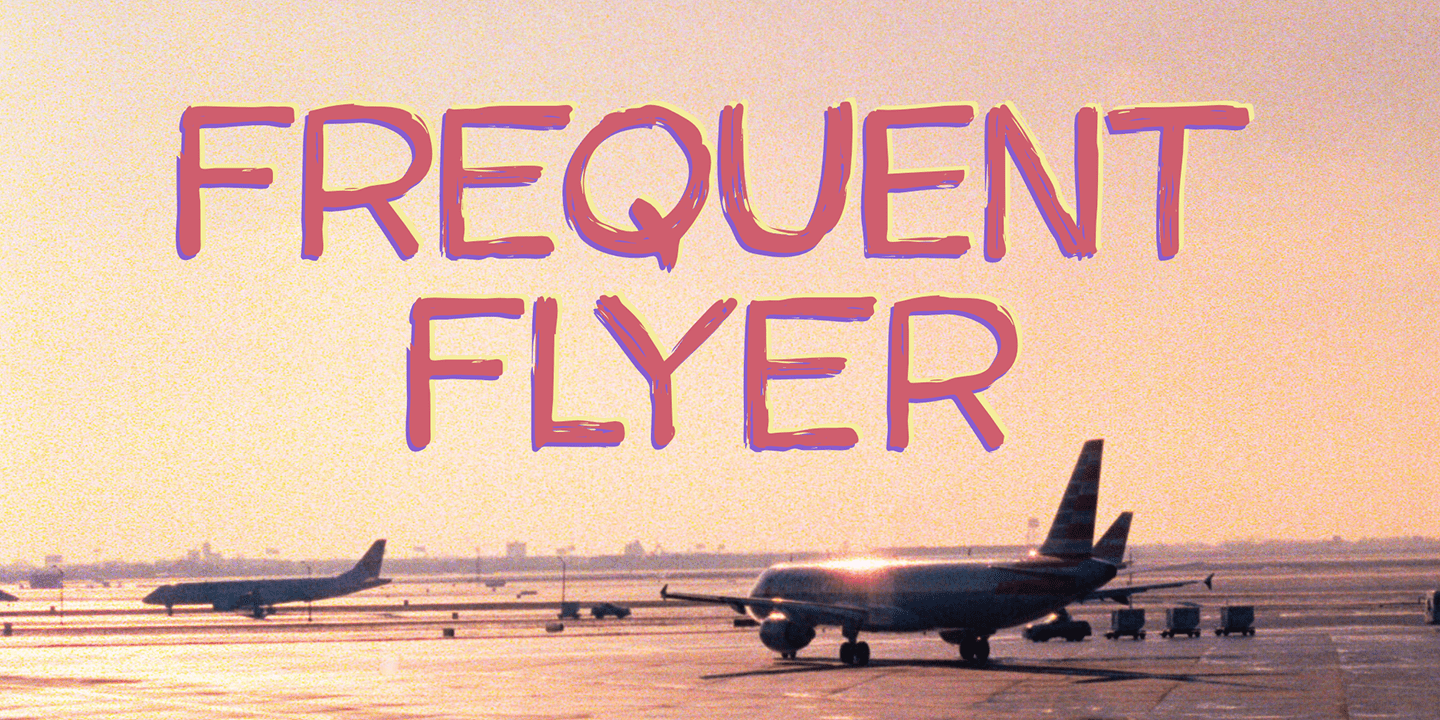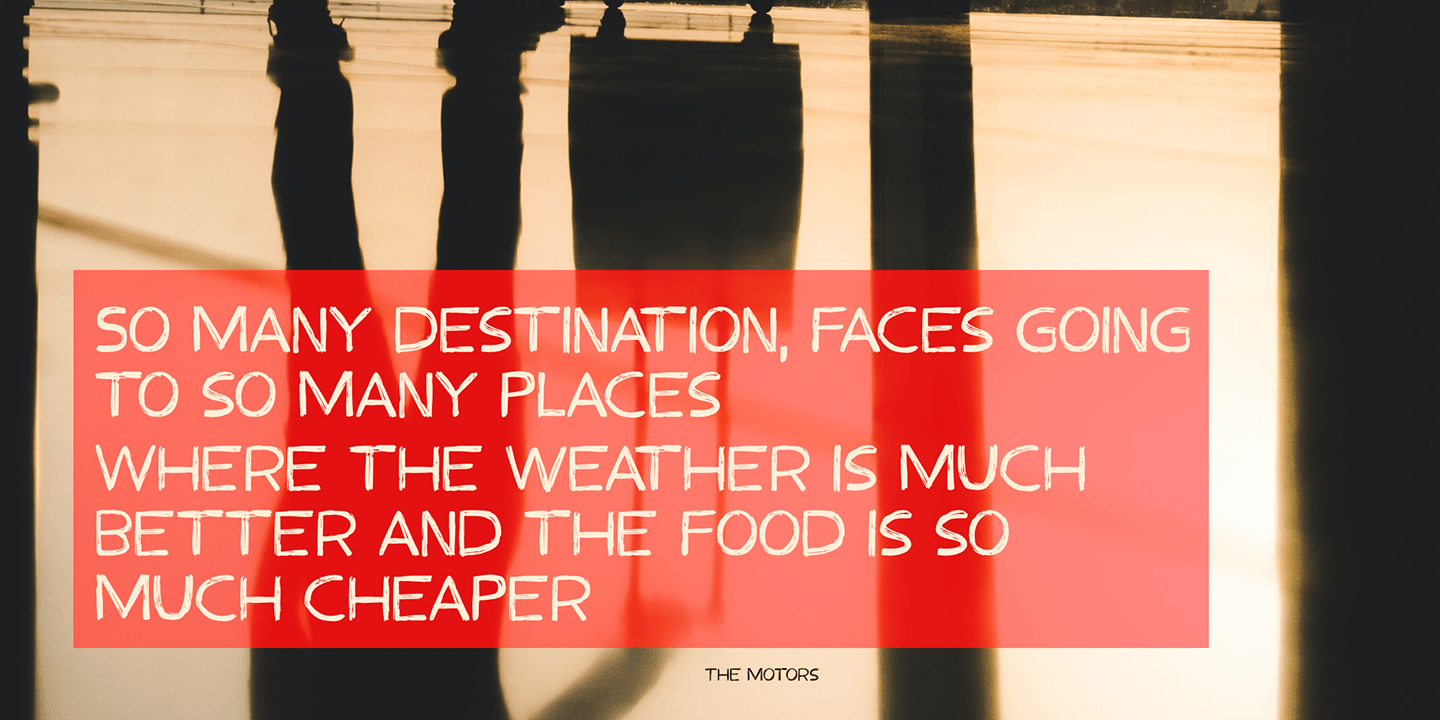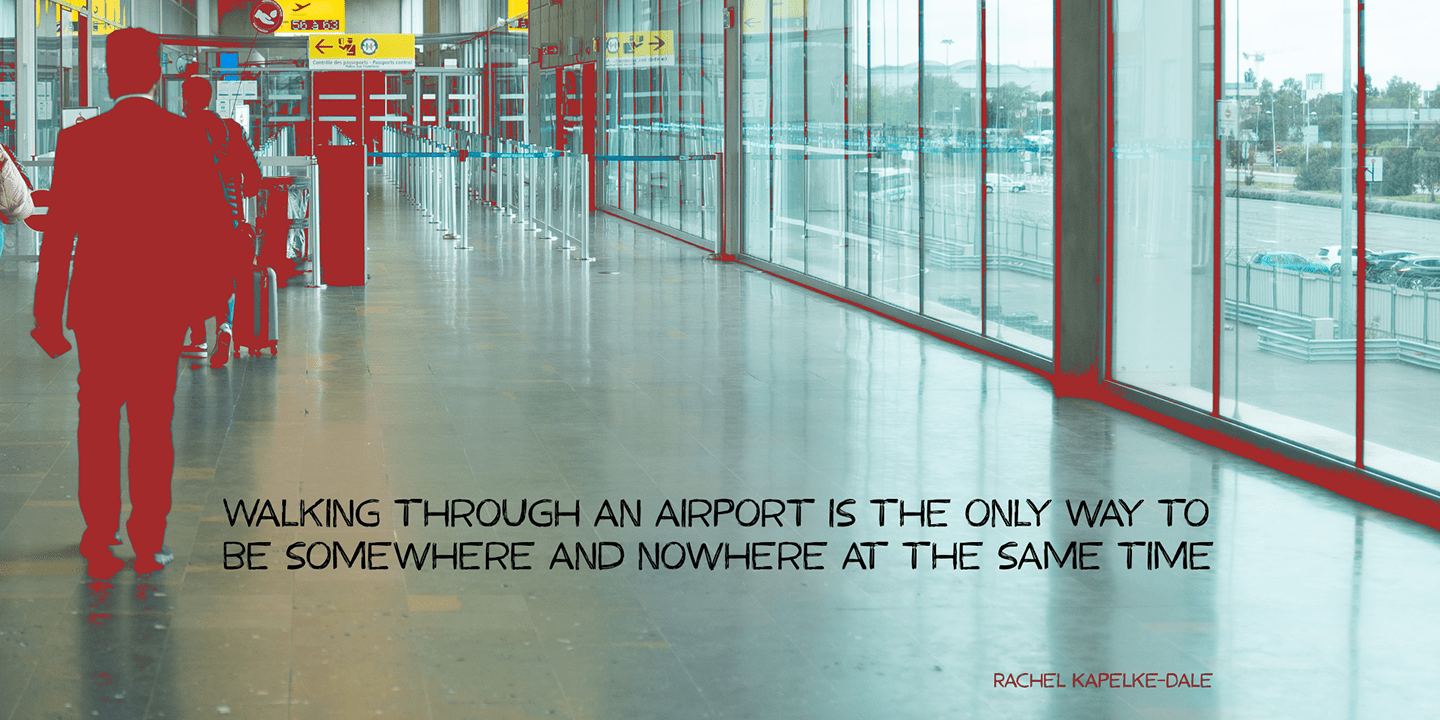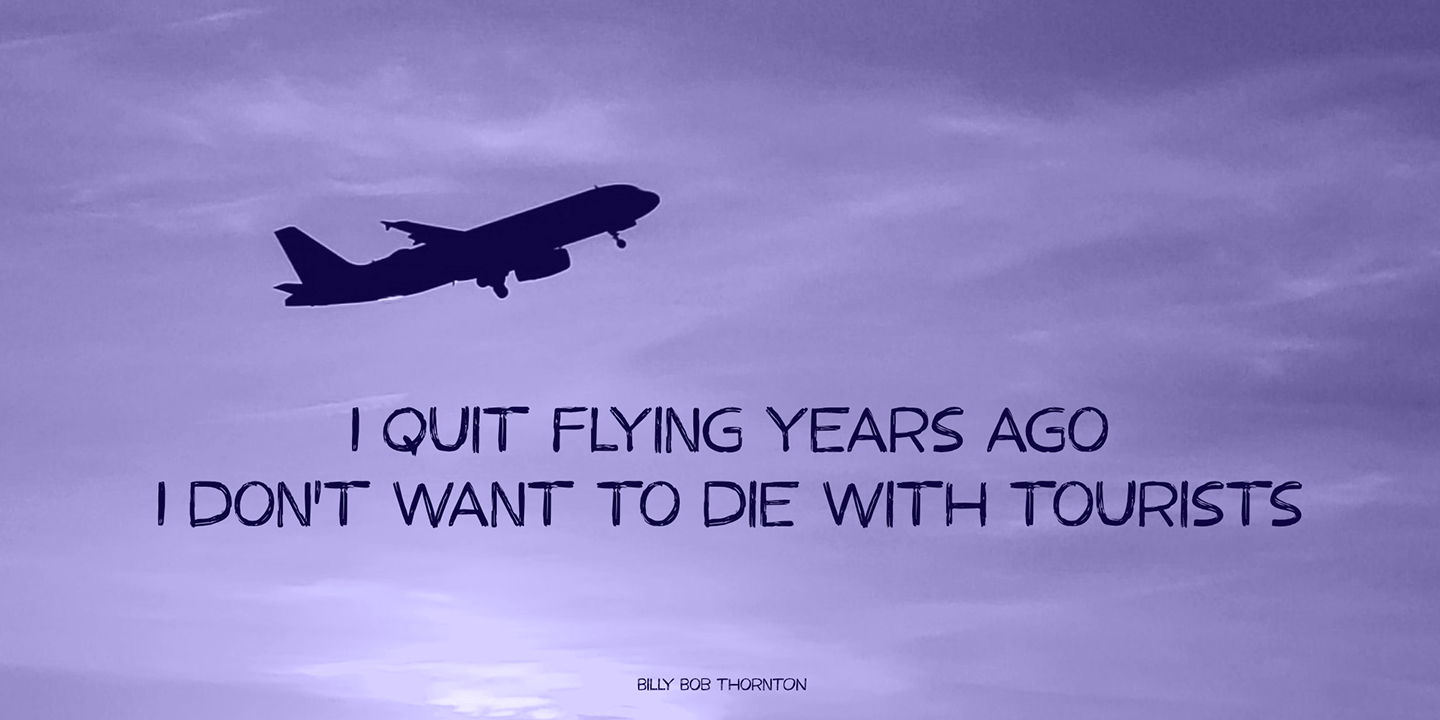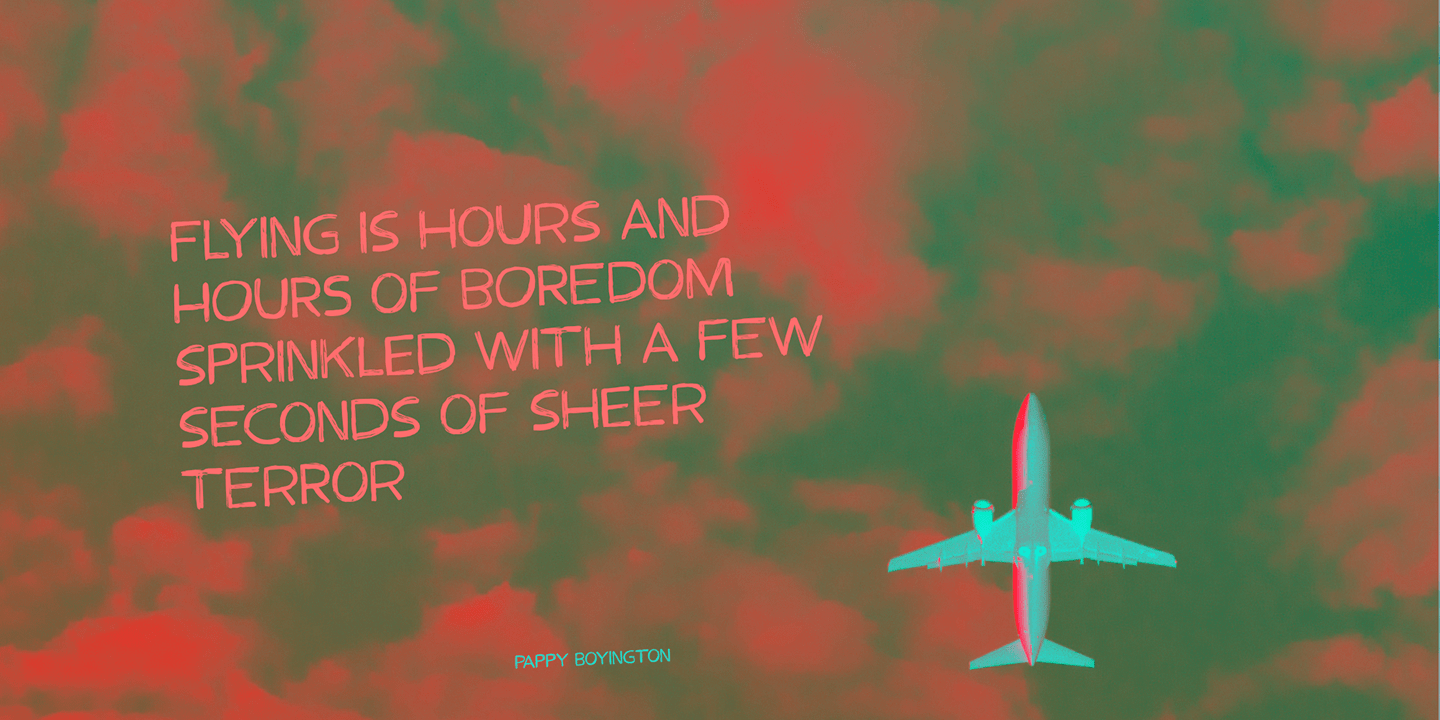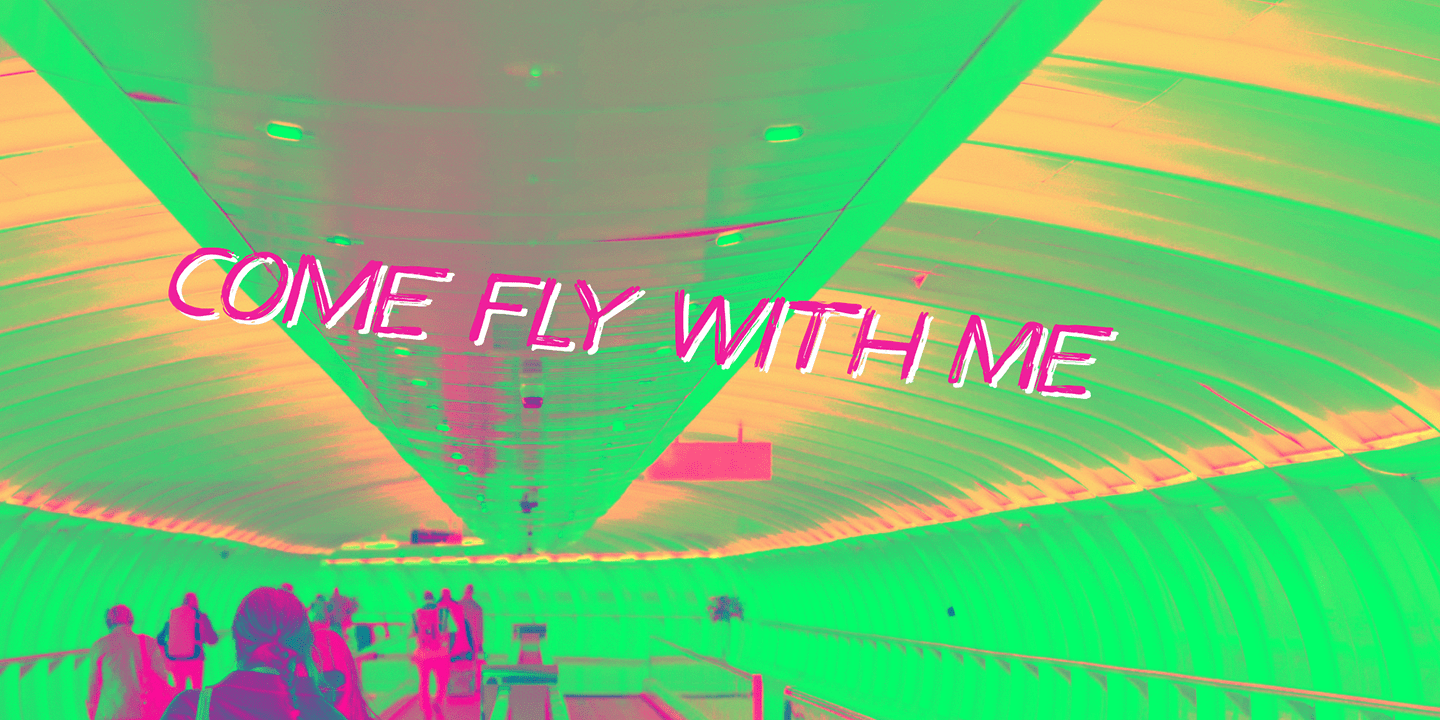
Frequent Flyer
I used to be a frequent flyer; as a tour guide I often had 6 to 10 international flights per year. At the time I didn't even think about the consequences of flying, as I loved my job and the job was all about travel. Now, with the planet in deplorable state, I try to keep flying to an utter minimum. I guess you call it 'shame of flying? . . .
Frequent Flyer font is a nice, eroded, all caps font. It comes with multilingual support, so you may come across it during your travels.